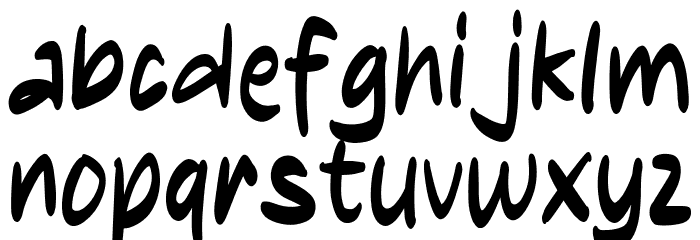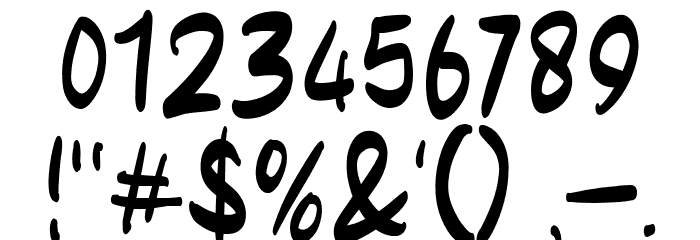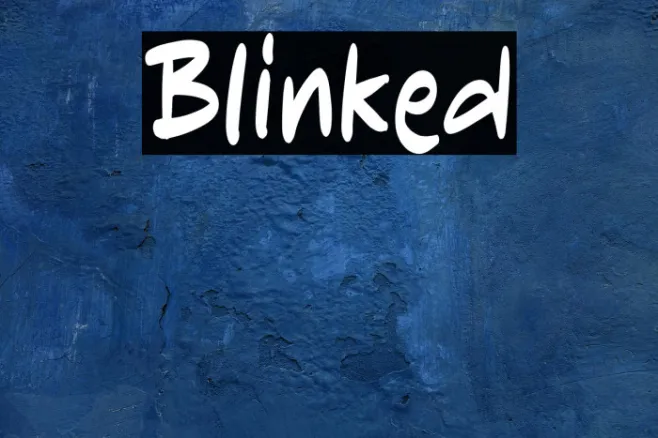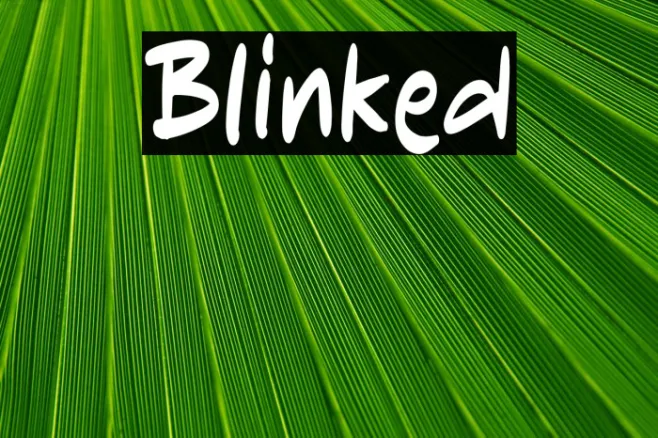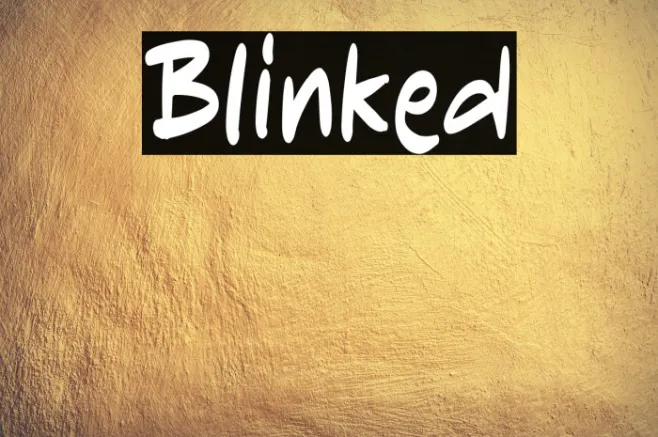
Blinked Font
This font exhibits a playful and casual handwritten style, characterized by its bold and slightly irregular strokes. The letters have a dynamic flow, with varying thickness that adds a sense of movement and energy. The uppercase and lowercase letters maintain a consistent style, with rounded edges and a slightly slanted orientation, giving it a friendly and approachable appearance. The numerals and special characters follow the same design principles, ensuring uniformity across all glyphs. This font's informal and lively nature makes it suitable for creative and fun projects.
A playful, bold handwritten font with dynamic strokes and a casual feel.
- Proposed Projects: Ideal for greeting cards, children's books, playful branding, and social media graphics.
- Overall Style: Casual
- Use Case: Headlines, Logos, Informal Texts